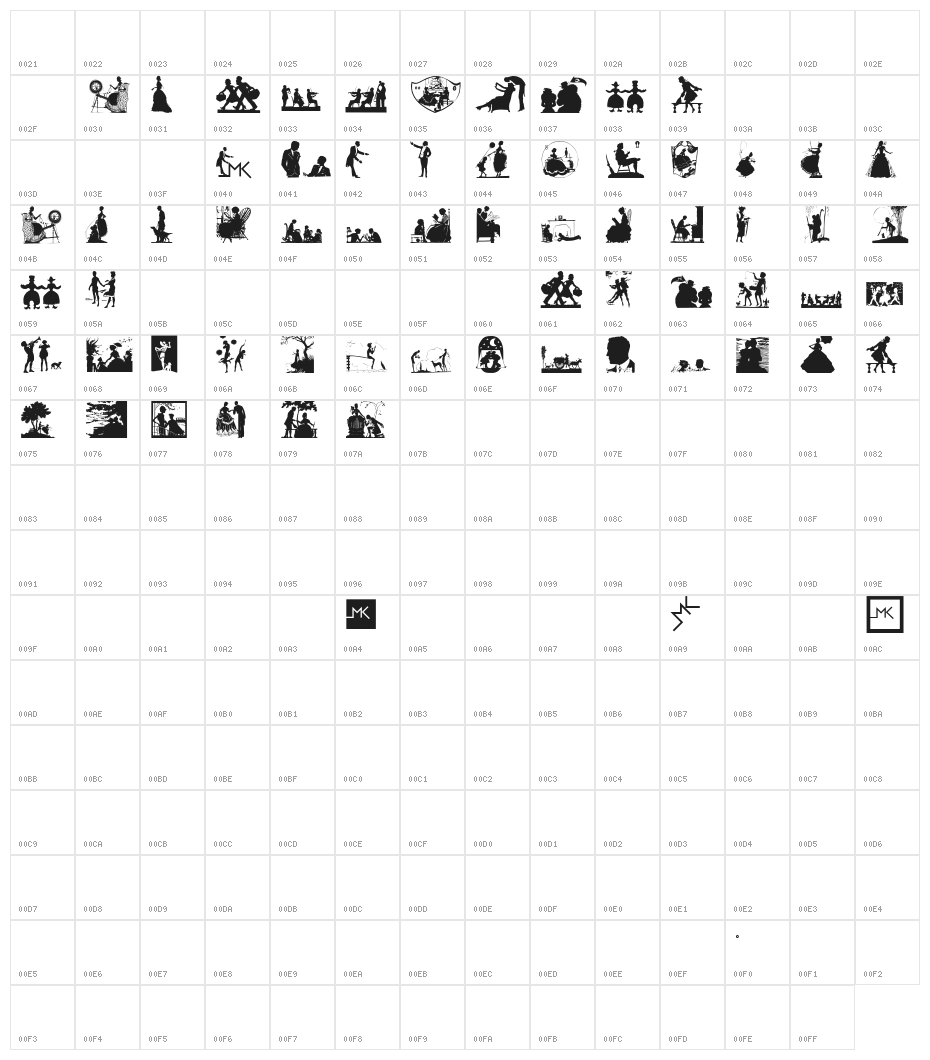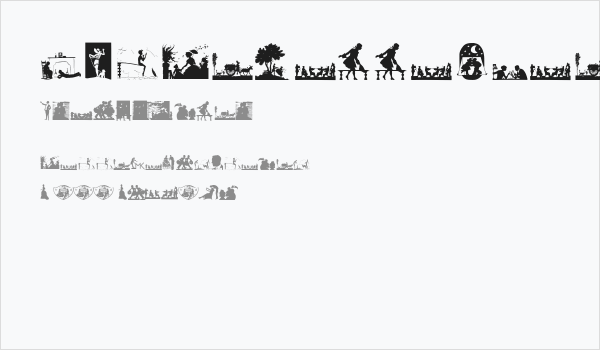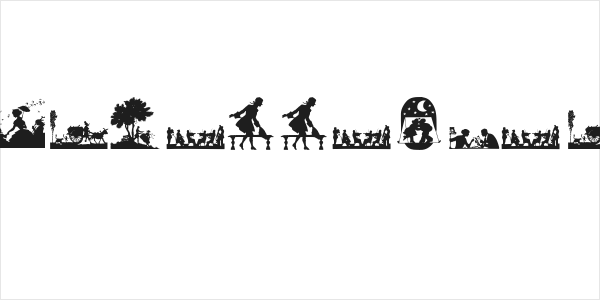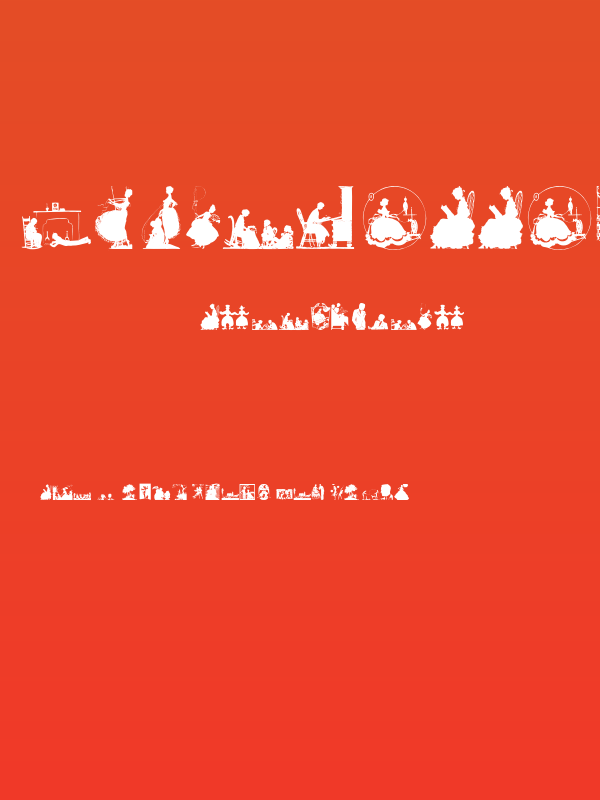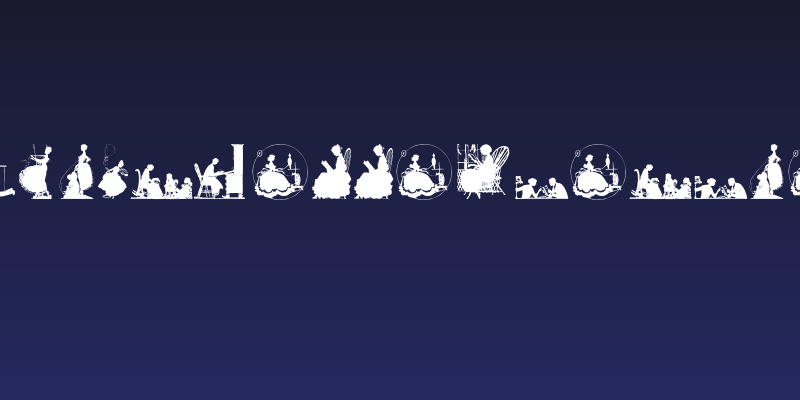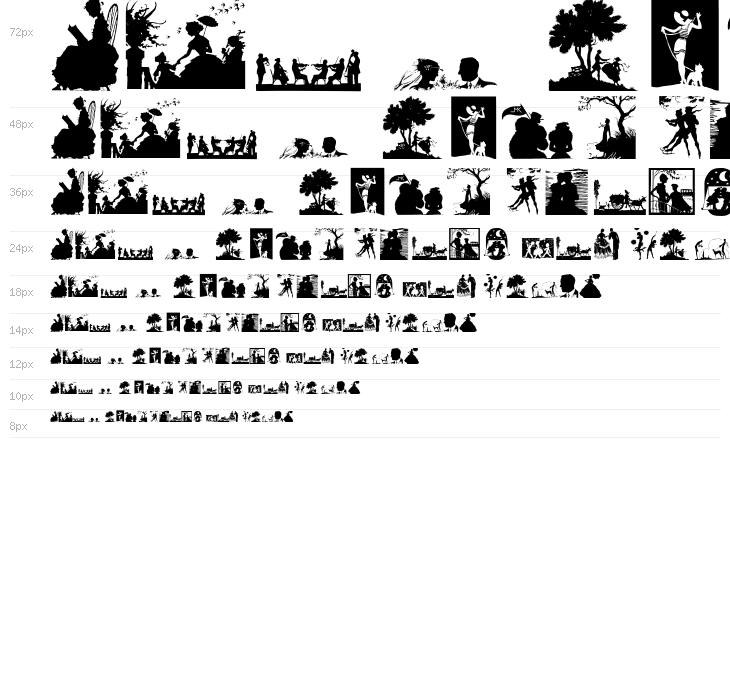
SilhouettenPeople Font
SilhouettenPeople Description
A decorative display font composed of intricate black silhouettes of people in various vintage and narrative scenes, each character representing a unique vignette rather than a traditional letterform. The style evokes a sense of storytelling and historical charm, with detailed outlines and strong contrast.
| Overall Style | Vintage, Decorative |
| Use Case | Logos, Headlines, Posters, Themed Graphics |
| Proposed Projects | Book covers, event invitations, posters, theatrical programs, themed branding, decorative headings. |